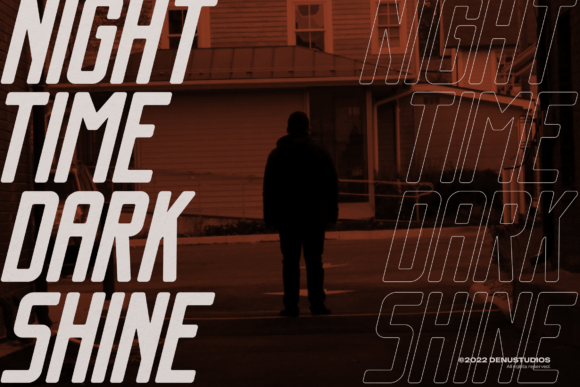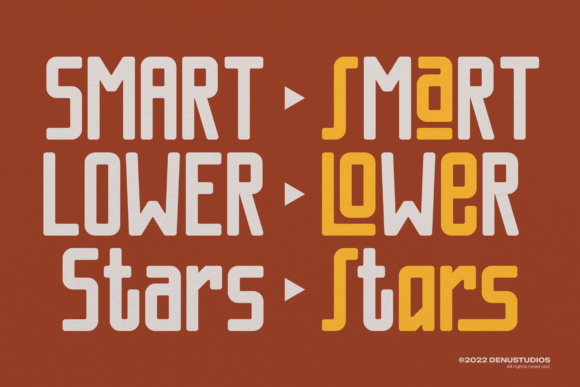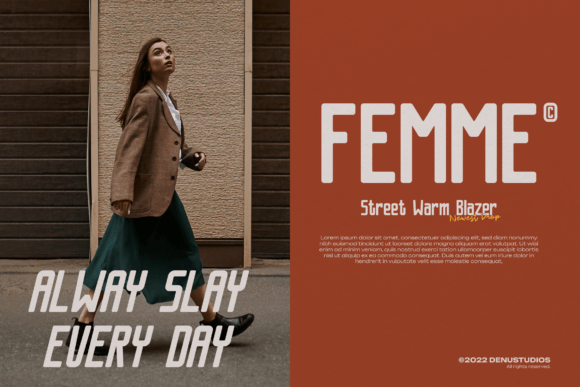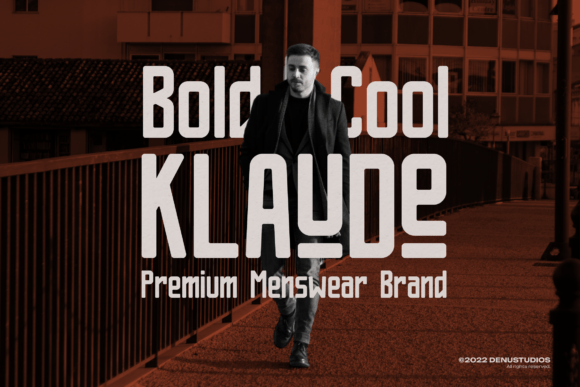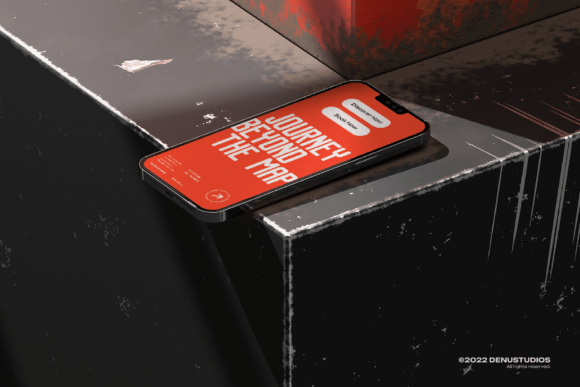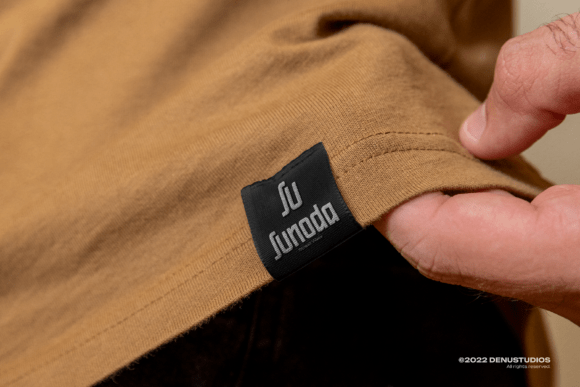
Introduction to Outsiders Original Font
Have you ever found yourself staring at a blank design canvas, struggling to find the perfect font to bring your creative project to life? The blank page can be intimidating, but it’s in these moments that we discover the true power of a well-crafted font. For designers, the right font can be the difference between a mediocre design and a masterpiece.
That’s where the Outsiders Original Font comes in – a modern display sans serif that’s designed to make a statement. With its bold geometric backbone and unique character cuts, this font is perfect for striking headlines, branding, and editorial layouts that need a strong, contemporary voice.
Whether you’re working on a high-quality design project or simply looking for a free download to add some creativity to your workflow, the Outsiders Original Font is a valuable resource that’s sure to deliver. Its transparent background and modular curves make it a versatile design tool that can be used across a variety of mediums, from digital interfaces to print materials.
Key Features of Outsiders Original Font
- Unique, hand-drawn design ideal for creative projects and design resources.
- High-quality font with a transparent background, allowing for easy customization and flexibility.
- Designed with a high resolution of 300 DPI, making it suitable for print and digital applications.
- Perfect for designers and artists looking for a distinctive, high-quality design resource for their creative projects.
Honest Review: Outsiders Original Font
As a designer, I’m always on the lookout for unique and high-quality design resources to elevate my creative projects. Recently, I had the chance to try out the Outsiders Original Font, and I’m excited to share my honest review.
- The Outsiders Original Font has a distinctive and edgy aesthetic that would be perfect for bold, attention-grabbing designs.
- The font is incredibly versatile and can be used for a wide range of creative projects, from posters to social media graphics.
- The high-quality design ensures that the font looks crisp and clear on both light and dark backgrounds, making it easy to use.
- The transparent background option is a great feature that allows for seamless integration with other design elements.
- The Outsiders Original Font may not be suitable for more conservative or traditional design projects, as its edgy aesthetic may be too bold.
- The font may not be as readable on very small or very large text sizes, which could be a limitation for certain design applications.
Overall, I’m impressed with the Outsiders Original Font and would definitely recommend it to designers who are looking for a unique and high-quality design resource. With its transparent background option and high-quality design, it’s a great addition to any design arsenal. Plus, it’s a free download, making it an even more attractive option for designers on a budget.
Tips for Getting the Most Out of Outsiders Original Font
To get the most out of this font, experiment with different font sizes, colors, and combinations to create unique and eye-catching designs.
The Outsiders Original Font is perfect for:
- Print materials and brochures